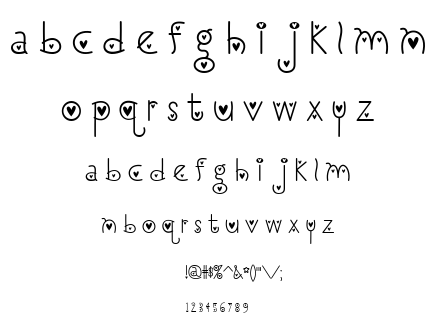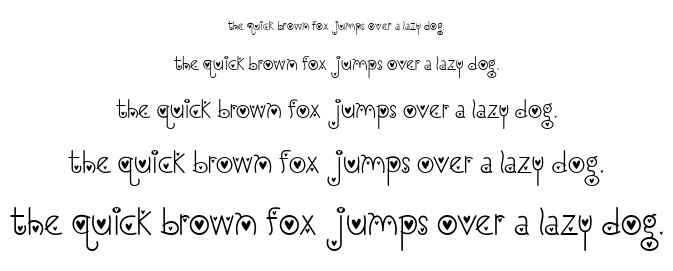
There are some special characters that are available for any program that supports opentype features. NOTE: These symbols WILL NOT show up on cofont!
Type ** for the boy monkey
Type ## for the girl monkey
Type << for the lips
Type <3 for the heart
Type <33 for the wide heart
Type =) for the smiley
Type i<3u for the I WUV YA!